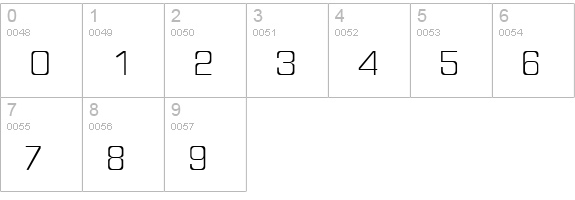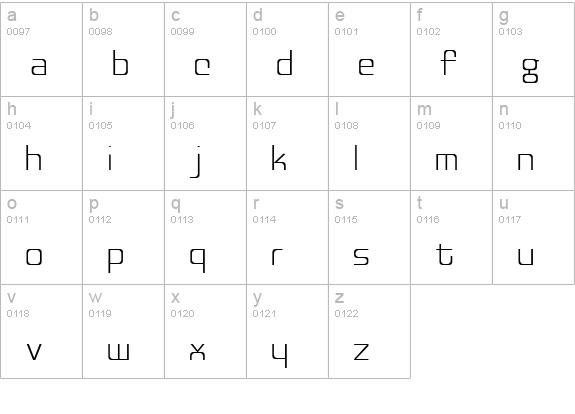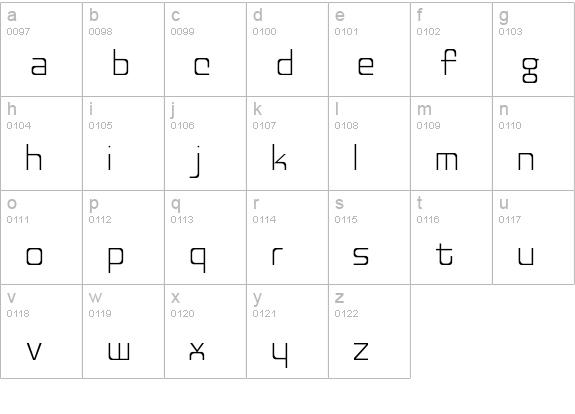
Discognate Light Font Details
Discognate Light is a refined, elegant variant in the Discognate typeface family \xE2\x80\x94 well suited to elegant body text, refined sub-headings, and luxury branding.
Discognate Light font is a modern and elegant typeface that exudes sophistication and style. With its sleek design and clean lines, this font is perfect for a wide range of design projects, from branding to editorial layouts. The light weight of the font adds a touch of delicacy and refinement, making it ideal for conveying a sense of elegance and professionalism. What sets Discognate Light font apart is not just its aesthetics, but also the fact that it is freely available to download at FontsMarket.com. This means that designers and creatives can easily access this high-quality font without any cost, making it a valuable addition to their font library. Whether you are working on a personal project or a client's design, Discognate Light font is a versatile choice that will elevate your work and give it a polished and sophisticated look.